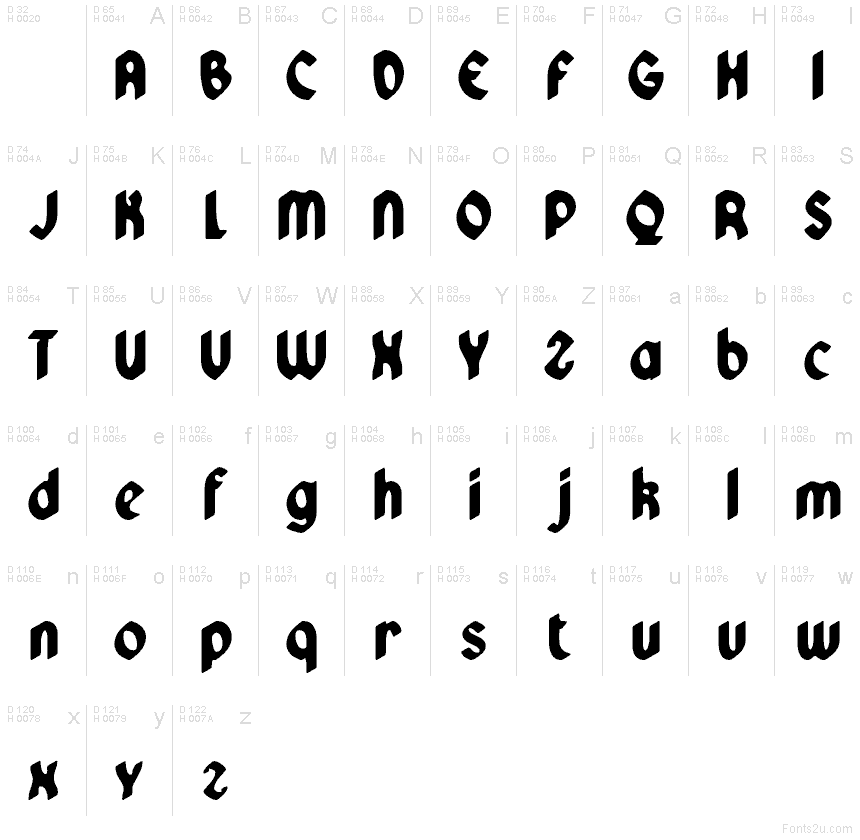
CSRiseDrawn-Regular Demo
CS Rise Drawn font by Craft Supply Co. has a gothic style distinguished by its bold and rounded geometric shapes. The high-impact typeface combines modernist influences with artistic flair, resulting in eye-catching texts. Its characters hold a unique balance that never sways, making the font an all-time favorite to designers.
This free gothic font can be used for posters, magazines, branding projects, merchandise items, packaging design projects, websites and blogs designs among other projects.